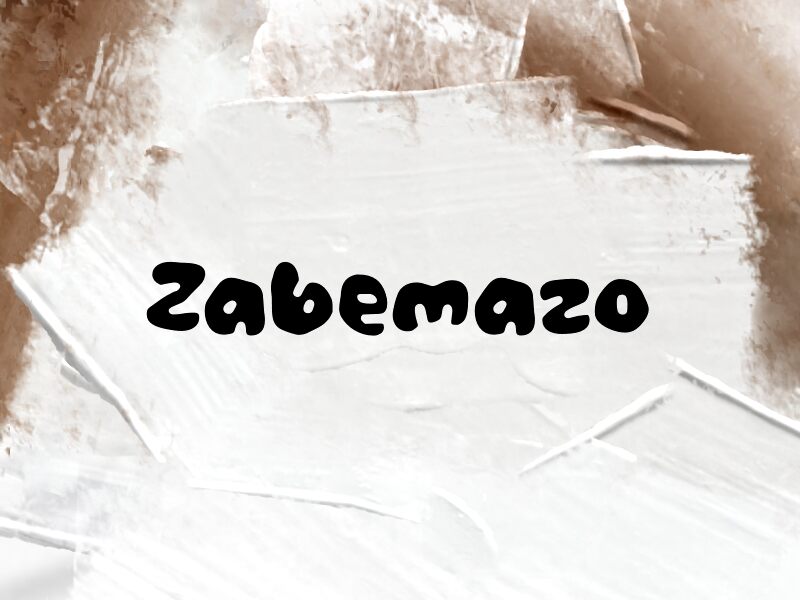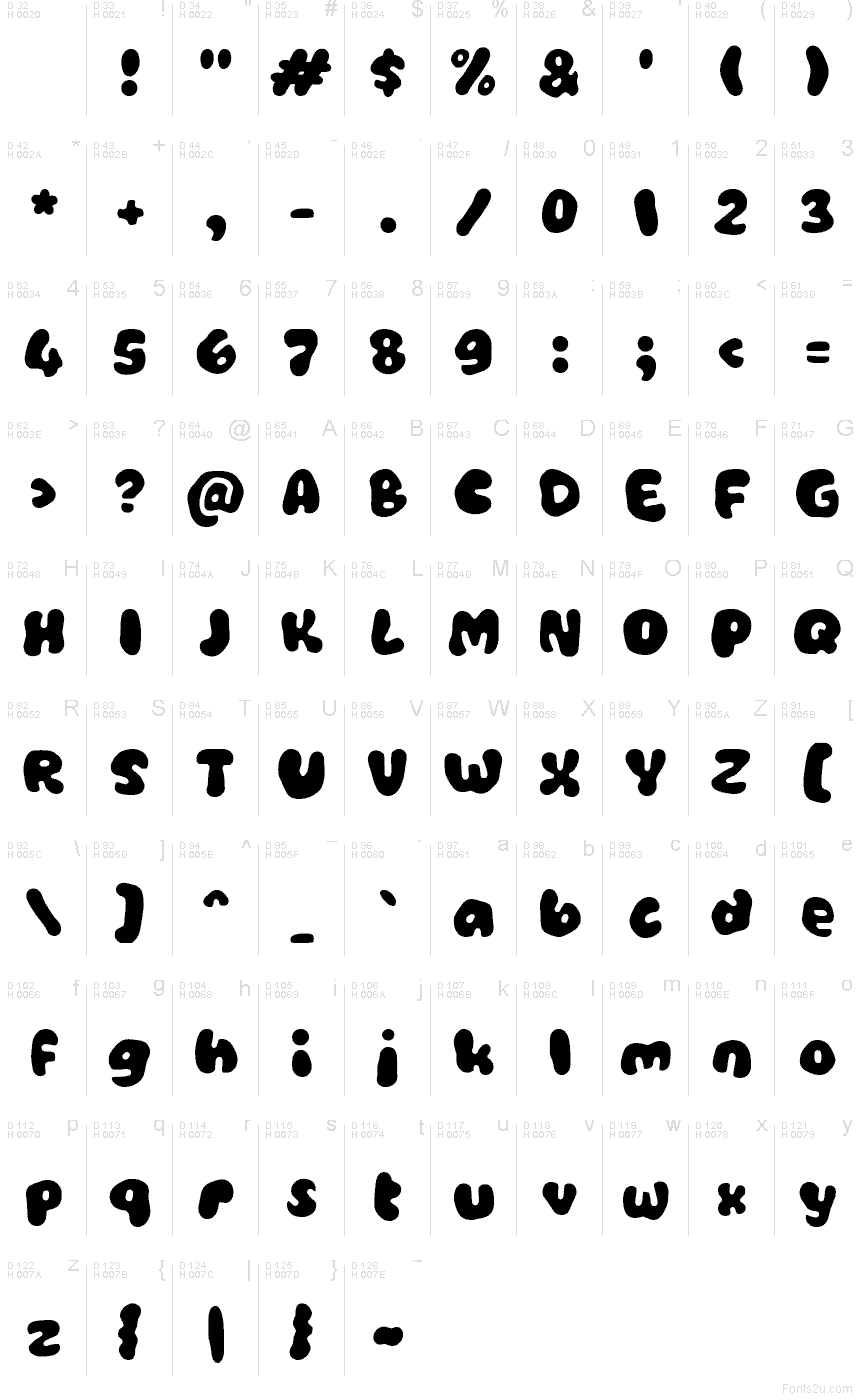
Zabemazo
Zabemazo font by wepfont.com is a free cartoon display typeface with a thick, inky bounce that feels like it was drawn in soft marker and left to gently wobble on the page. Its chunky, blobby shapes and loose rhythm give every word a gooey, animated energy, like text from a slime game or candy commercial suddenly sprung to life. The letters pack in close, creating a solid, playful mass that grabs attention in an instant.
Using Zabemazo, you can crank up the fun on kids’ logos, mobile game titles, YouTube thumbnails, candy or snack packaging, birthday invitations, stickers, and comic-style panels. This free font works beautifully as a loud headline voice; keep it big and bold, then pair it with a simple rounded sans-serif for supporting text to let its squishy personality really stand out.